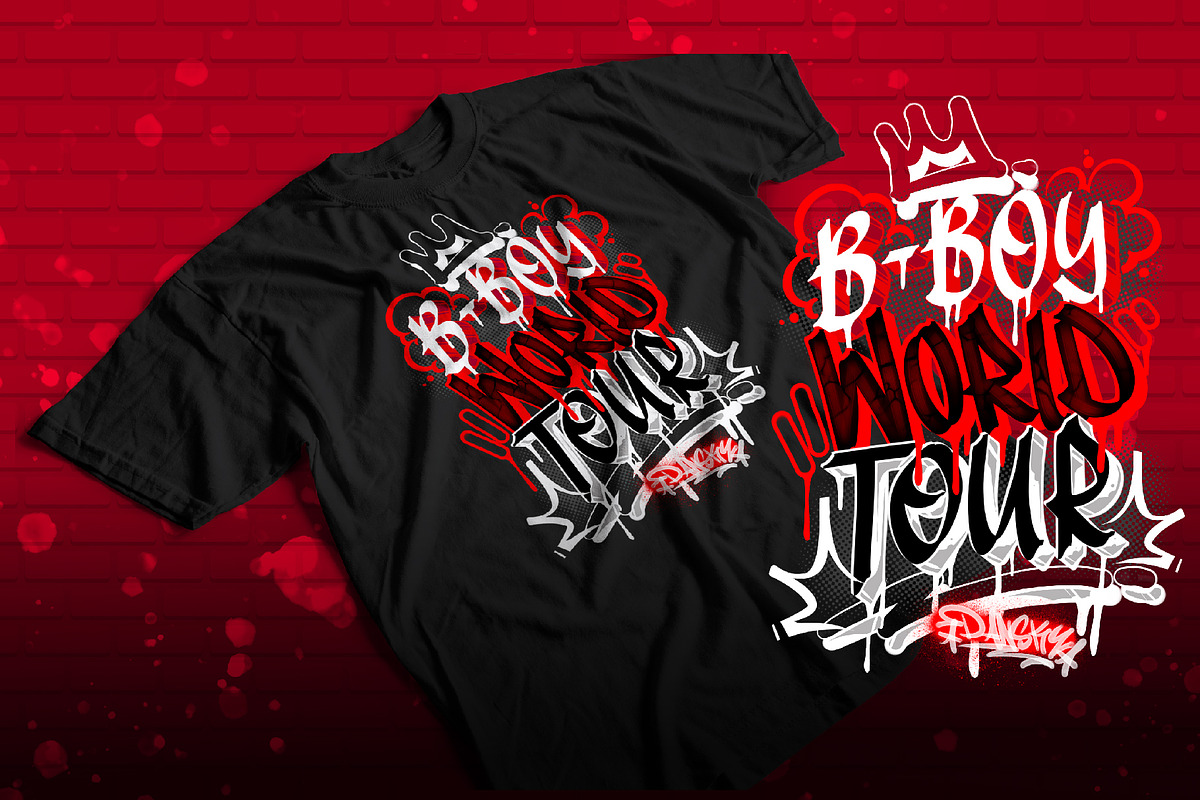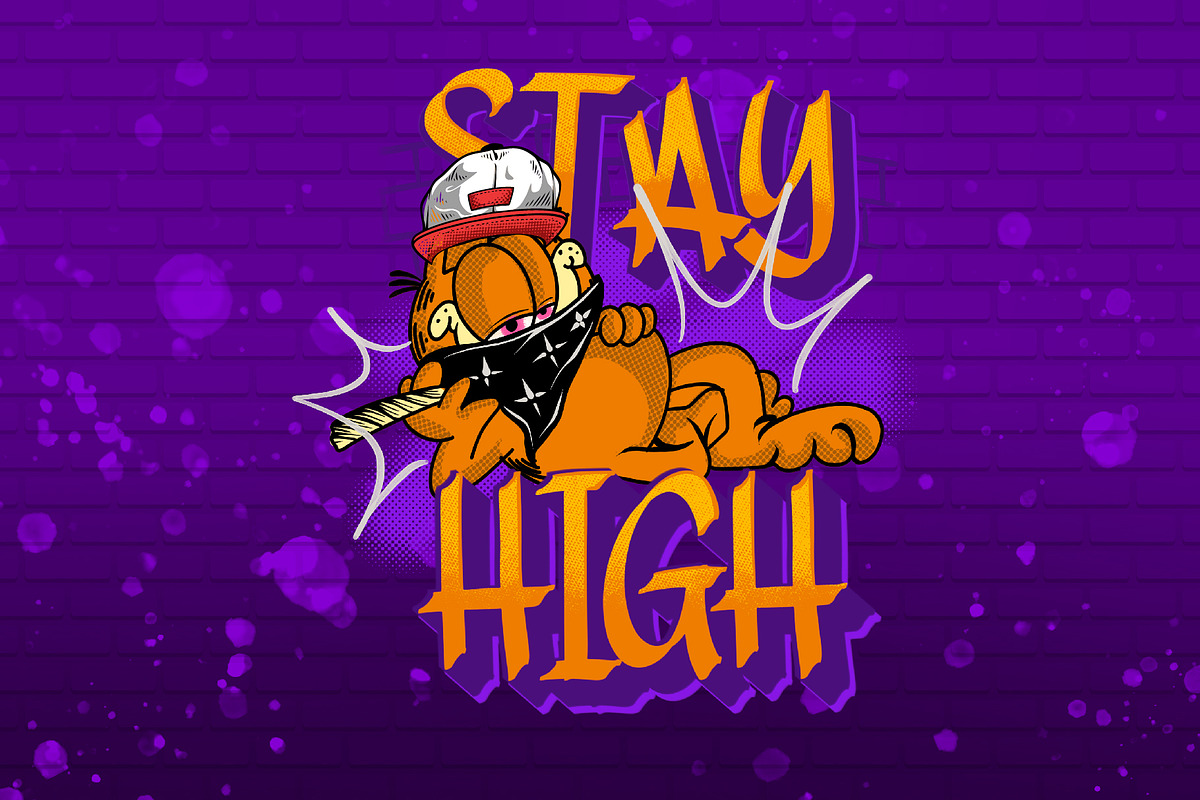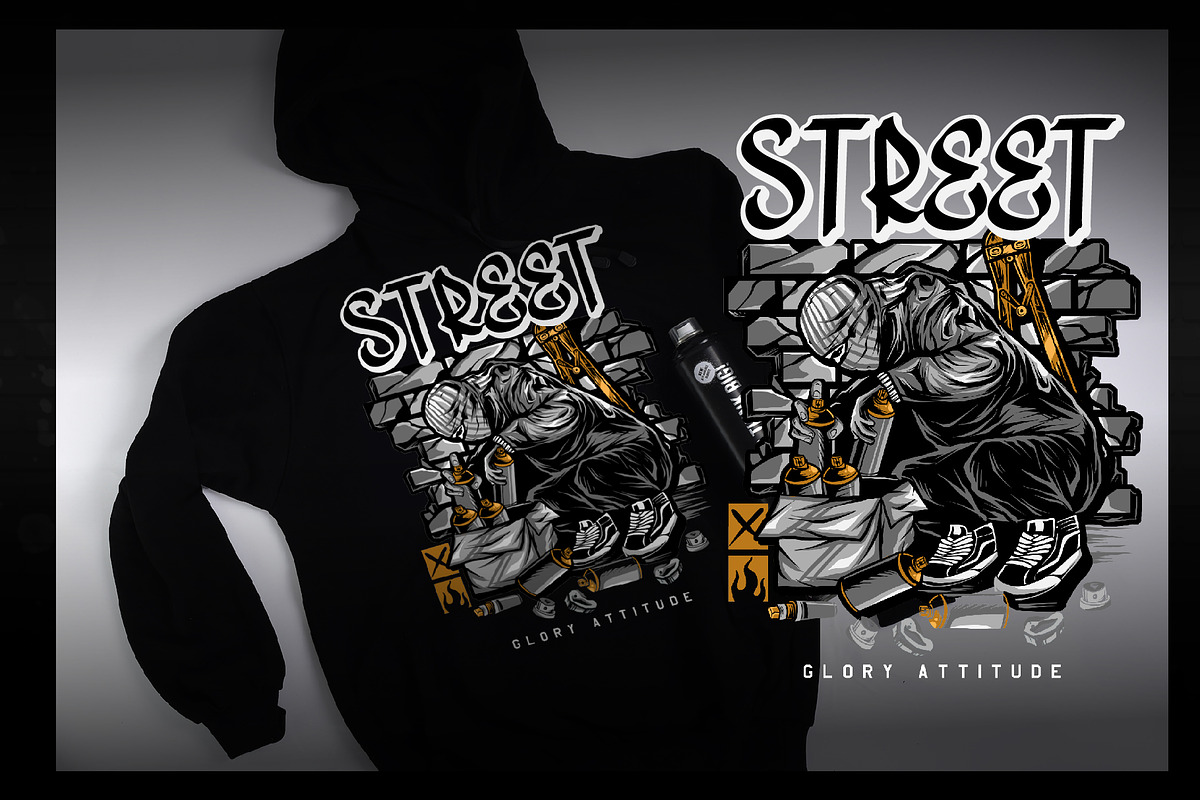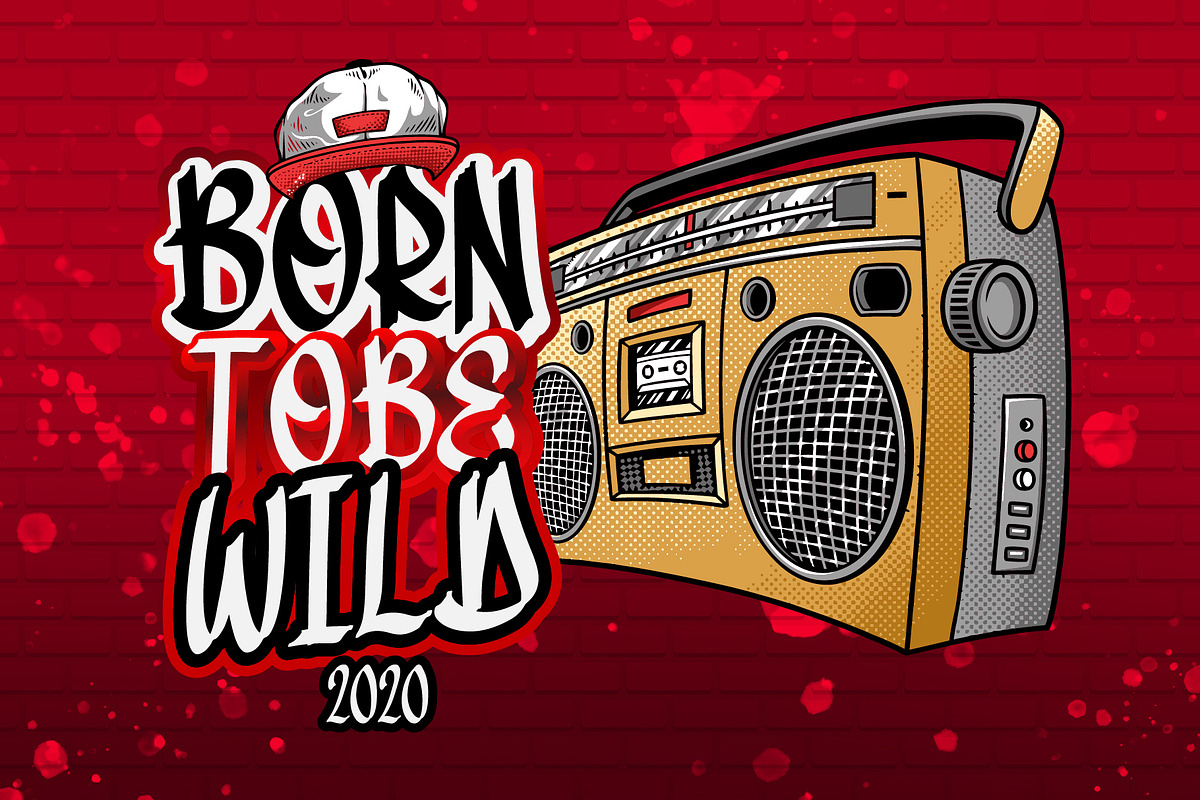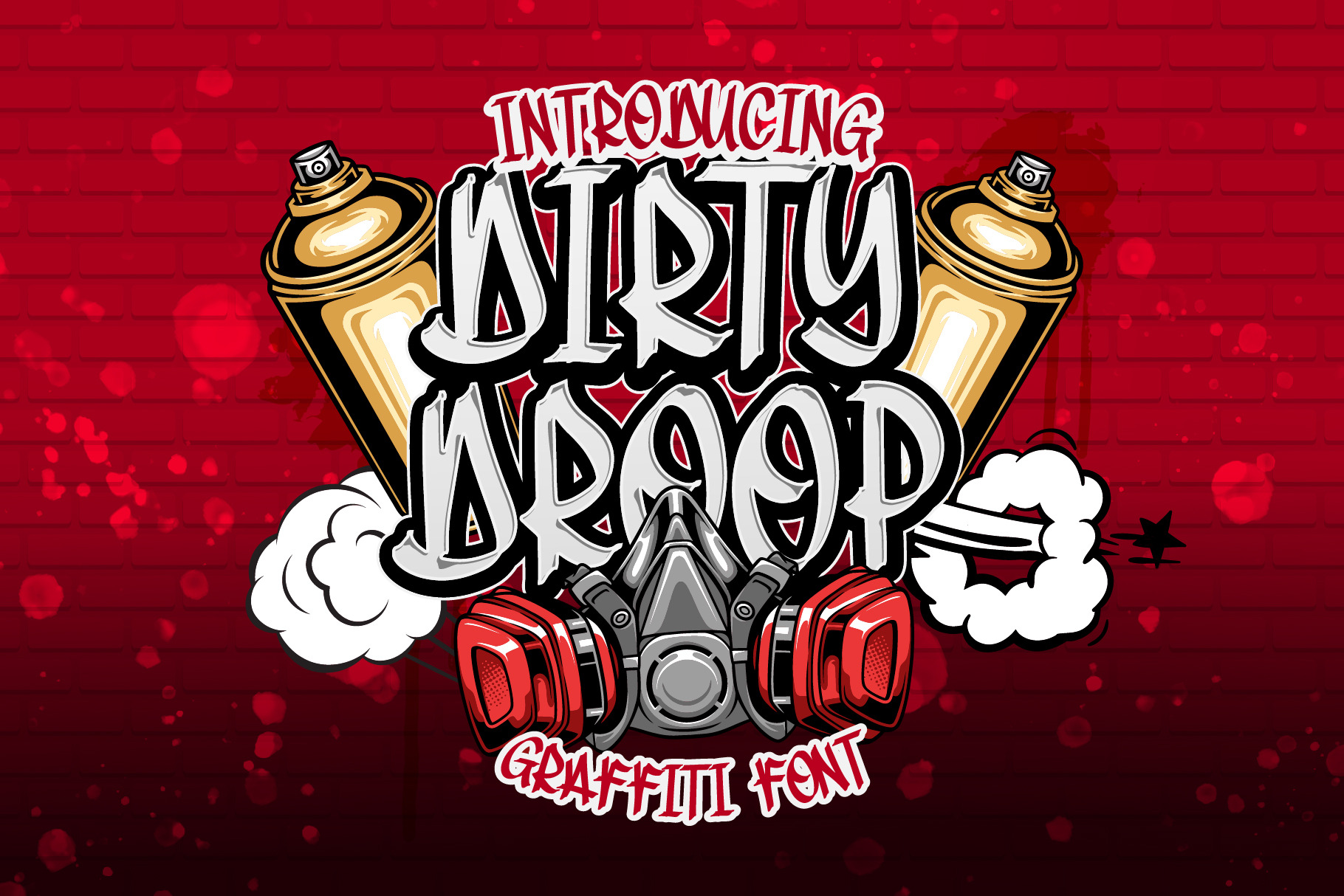
DIRTYDROOP GRAFFITI FONT (SALE)
Dansdesign Proudly present our new product DIRTYDROOP GRAFFITI FONT This font is made with references to various graffiti artthat I combine and design with my style.
DIRTYDROOP GRAFFITI FONT are great and usefull for product logo, poster title, headline, packaging, badge, wedding card logo, clothing brand logo,Vintage design and much more